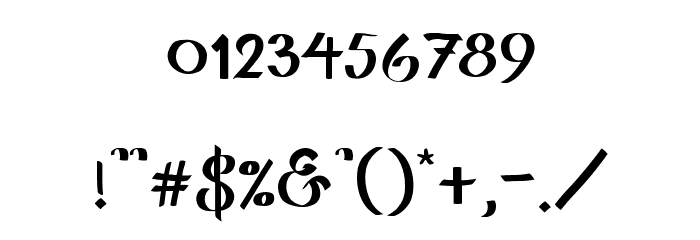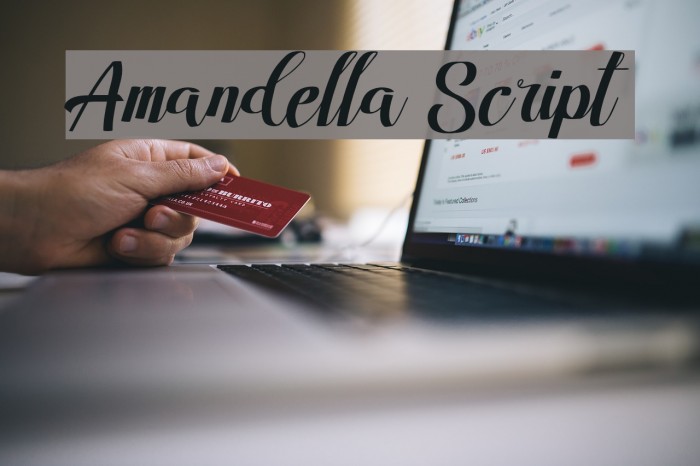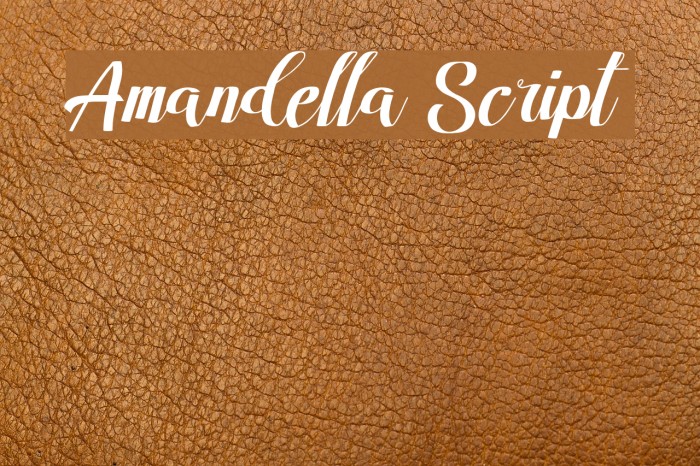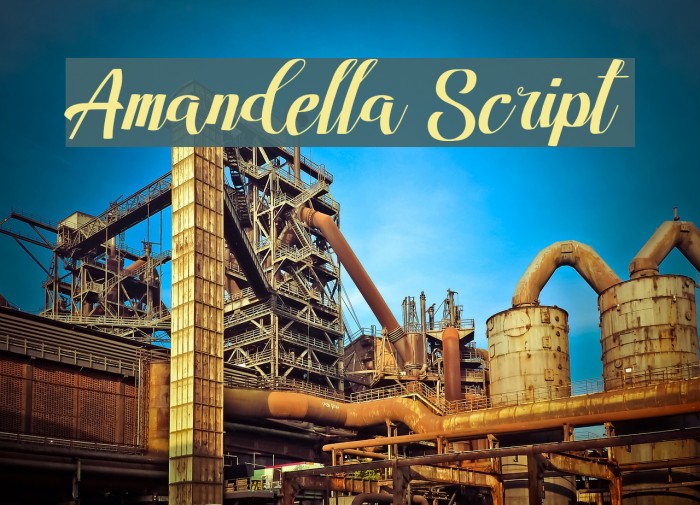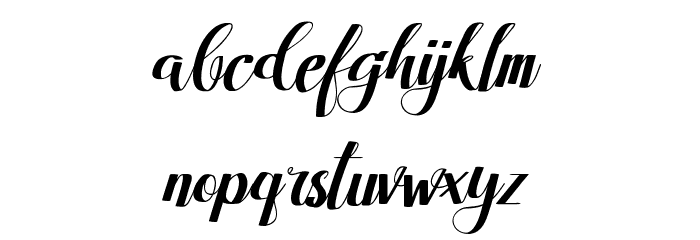
Amandella Script Font
Amandella Script Description
This font is a stylish and elegant script typeface that exudes sophistication and charm. The uppercase letters are bold and flowing, with a slight slant that adds a dynamic feel. The lowercase letters are intricately designed with graceful loops and swashes, creating a sense of fluidity and movement. The numerals are consistent with the overall style, maintaining the script's elegance. Special characters are thoughtfully integrated, ensuring versatility in various design contexts. The font's overall appearance is both classic and modern, making it suitable for a wide range of applications.
| Overall Style | Elegant, Classic |
| Use Case | Logos, Invitations, Branding |
| Proposed Projects | Ideal for wedding invitations, branding, luxury product packaging, and elegant logo designs. |